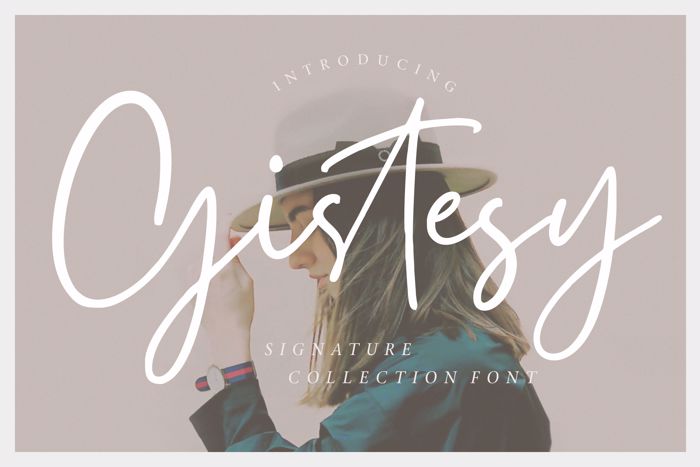
Gistesy Font
Gistesy is a beautifully crafted handwritten signature font designed for creators who want to bring a touch of elegance and personality to their work. Its smooth, flowing strokes and natural handwritten movement make it perfect for projects that require a stylish and authentic script aesthetic. Gistesy captures the essence of modern calligraphy while maintaining a clean, minimalist feel that works well across both digital and print design.
This versatile script font is ideal for branding, logo design, wedding invitations, stationery, social media graphics, product packaging, and photography watermarks. Its graceful letterforms and professionally designed ligatures allow Gistesy to deliver a refined look that stands out in high-end, fashion, and lifestyle designs. Whether you’re creating a signature-style logo or adding a personal touch to your marketing materials, Gistesy offers the sophistication and readability designers love.
Gistesy includes a full set of uppercase and lowercase letters, punctuation, numbers, and smooth, expressive swashes that enhance the handwritten feel. It works seamlessly in design software and remains crisp at any size, making it an excellent choice for both small decorative text and larger headline use.
If you’re looking for an elegant handwritten script font that elevates your branding, invitations, or creative projects, Gistesy is a standout option that brings warmth, personality, and artistry to every design.